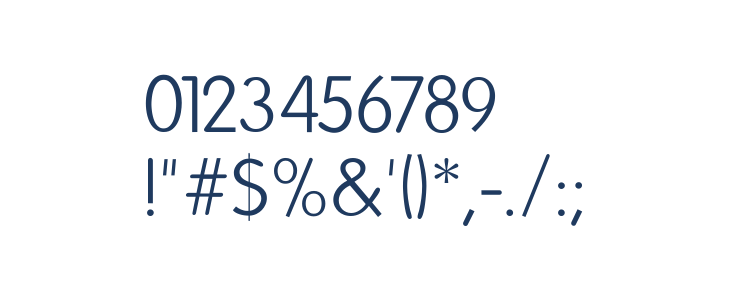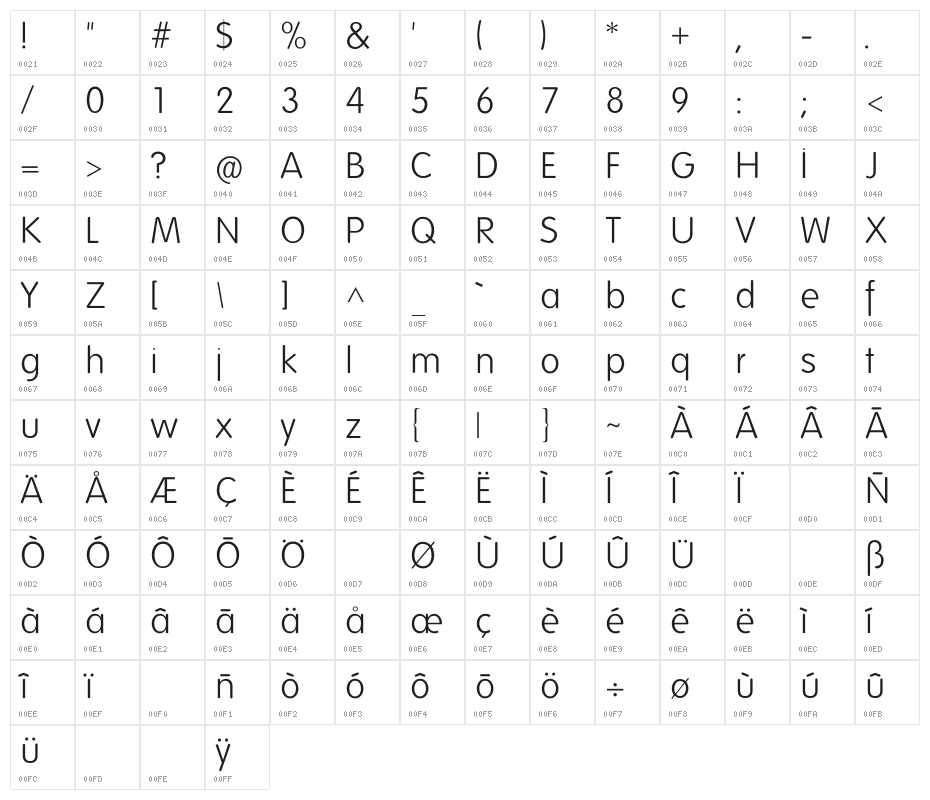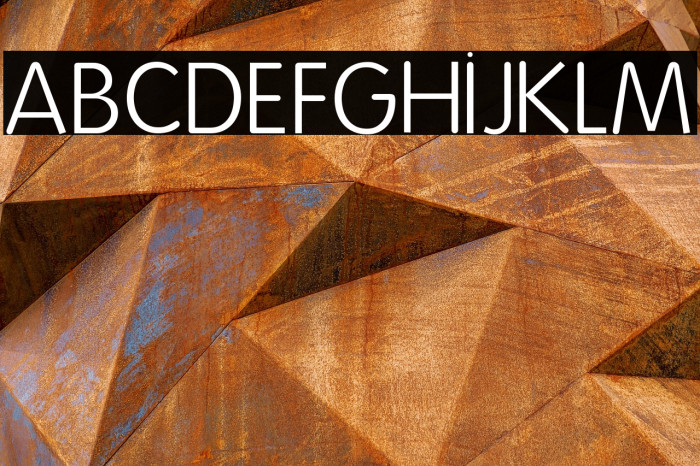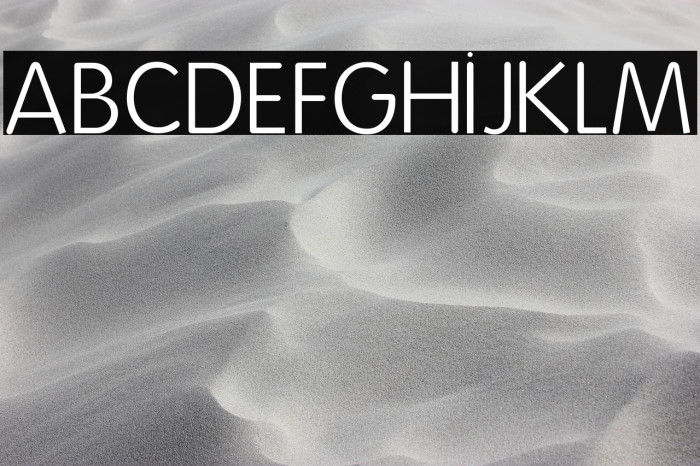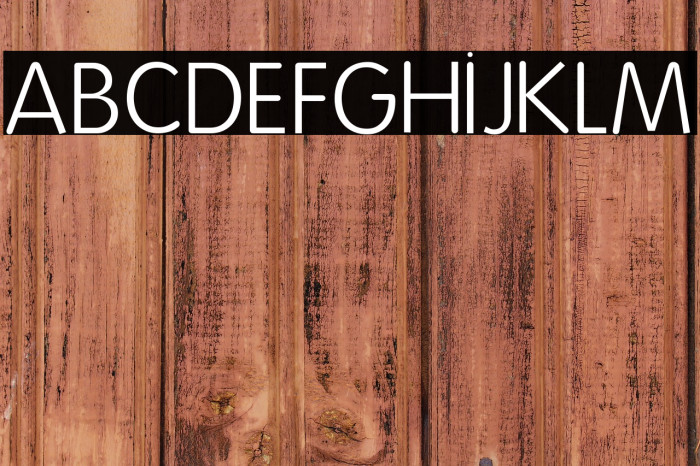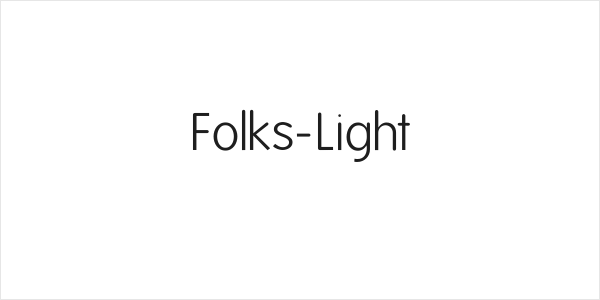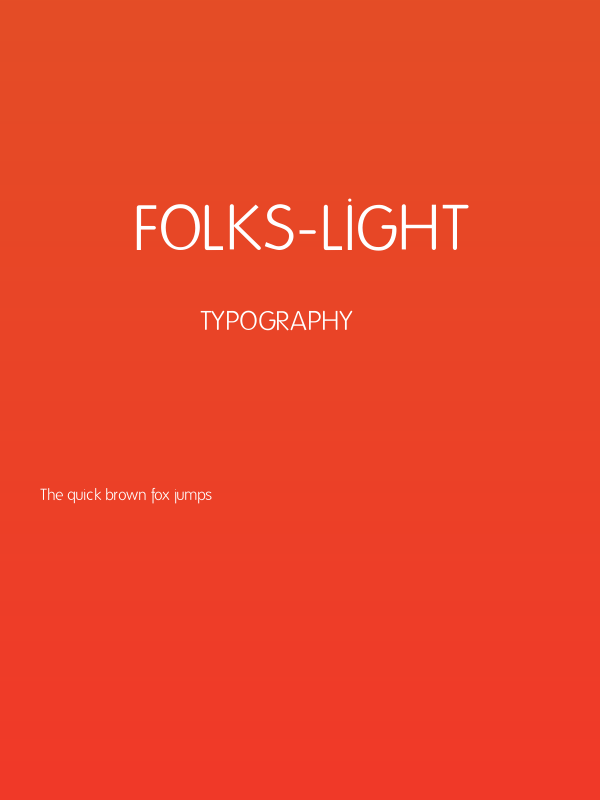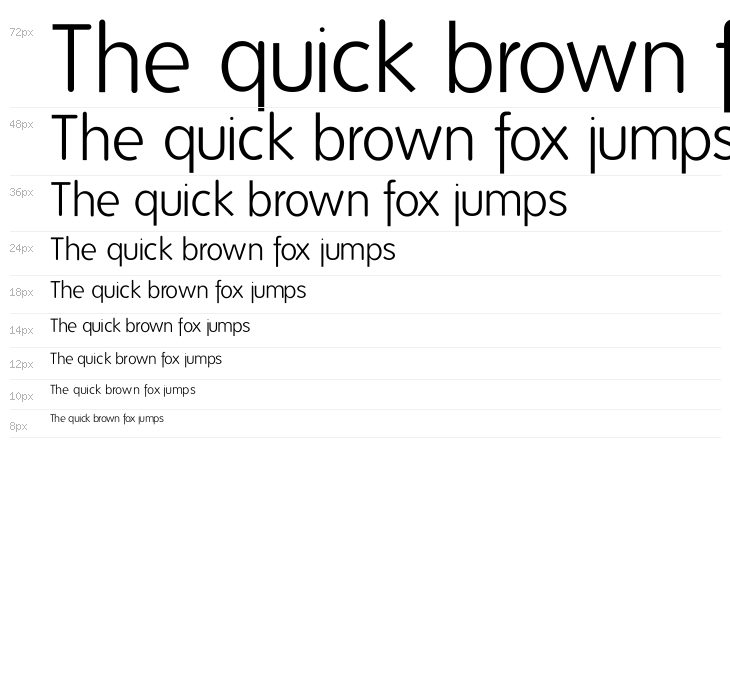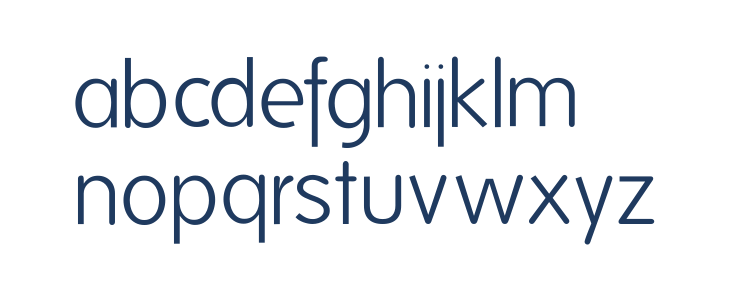
Folks-Light Font
Folks-Light Description
This font features a clean and modern sans-serif design with a light weight. The characters are evenly spaced, providing a balanced and harmonious appearance. The uppercase and lowercase letters maintain a consistent style, with smooth curves and straight lines that enhance readability. The numerals are clear and distinct, making them suitable for various applications. Special characters are well-integrated, maintaining the overall aesthetic of the font. Its simplicity and elegance make it versatile for both digital and print media.
| Proposed Projects | Ideal for web design, branding, corporate materials, and editorial layouts. |